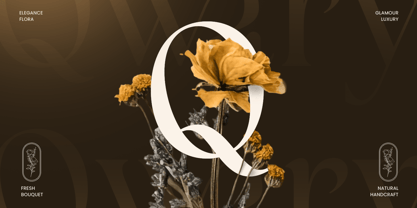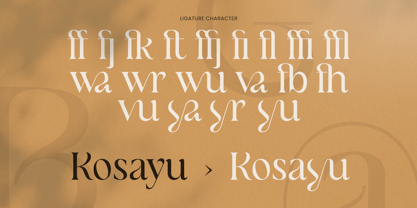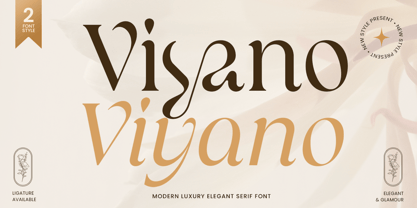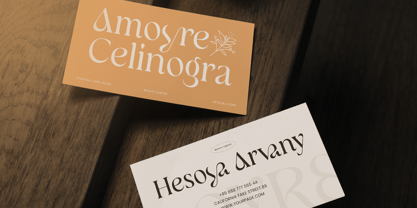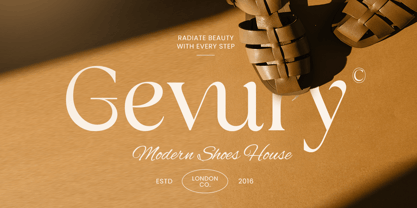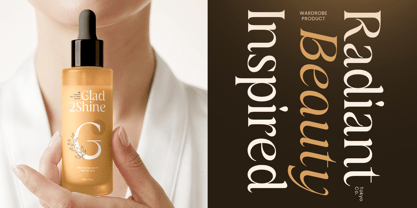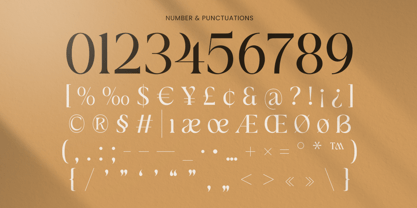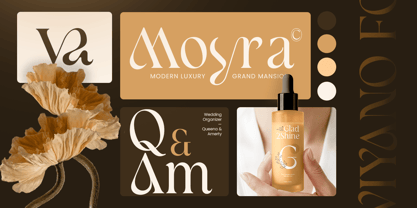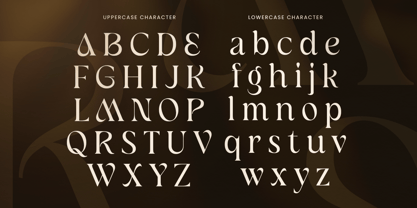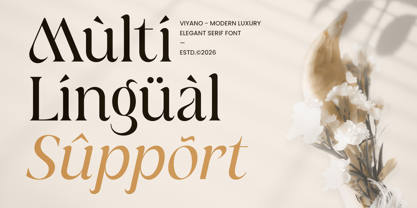
Viyano
The Viyano Font Family was designed by Zamroni Hamzah and published by Sensatype Studio. Viyano contains 2 styles and family package options. More about this family
Viyano is a modern luxury elegant serif font crafted to bring sophistication, beauty, and exclusivity into every design. With refined serif details, graceful proportions, and a timeless visual character, this typeface is ideal for luxury branding, fashion campaigns, editorial layouts, and premium packaging.
Designed for brands that value elegance and distinction, Viyano combines contemporary aesthetics with classic refinement. Its stylish letterforms create a polished visual presence that works beautifully across logos, invitations, magazines, beauty branding, and upscale product identities.
Whether you're designing for fashion labels, luxury boutiques, lifestyle products, or creative editorials, Viyano delivers clarity, prestige, and a memorable high-end appearance in both print and digital applications.
Viyano – Modern Luxury Elegant Serif Font Features
• Elegant serif design with a modern luxury aesthetic
• Available with 2 styles: regular and italic modern variations
• Perfect for branding, editorials, fashion, and premium packaging
• Refined character shapes with timeless visual appeal
• Ideal for beauty, lifestyle, wedding, and luxury industries
• Uppercase, lowercase, numerals, and punctuation included
• OpenType features for advanced typographic styling
Multilingual support for Afrikaans, Albanian, Asu, Basque, Bemba, Bena, Breton, Chiga, Cornish, Dutch, English, Estonian, Filipino, Finnish, Friulian, Galician, German, Gusii, Indonesian, Irish, Italian, Kabuverdianu, Kalenjin, Kinyarwanda, Luo, Luxembourgish, Luyia, Machame, Makhuwa-Meetto, Makonde, Malagasy, Manx, Morisyen, North Ndebele, Nyankole, Oromo, Portuguese, Quechua, Romansh, Rombo, Rundi, Rwa, Samburu, Sango, Sangu, Scottish Gaelic, Sena, Shambala, Shona, Soga, Somali, Spanish, Swahili, Swedish, Swiss, and more.